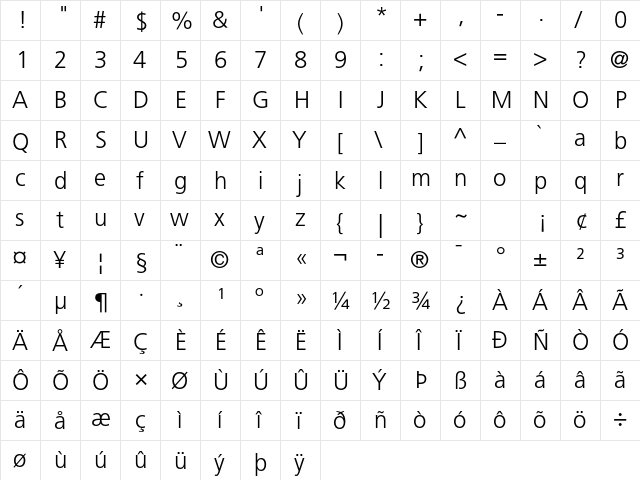
Frutiger LT Std 45 Light
| Designer | Adrian Frutiger |
Design Context for Frutiger LT Std Typeface
Frutiger LT Std offers clean, dependable letterforms without strong stylistic allegiance, making it a practical choice for designers who need flexibility. The delicate stroke weight brings airiness and refinement to layouts.